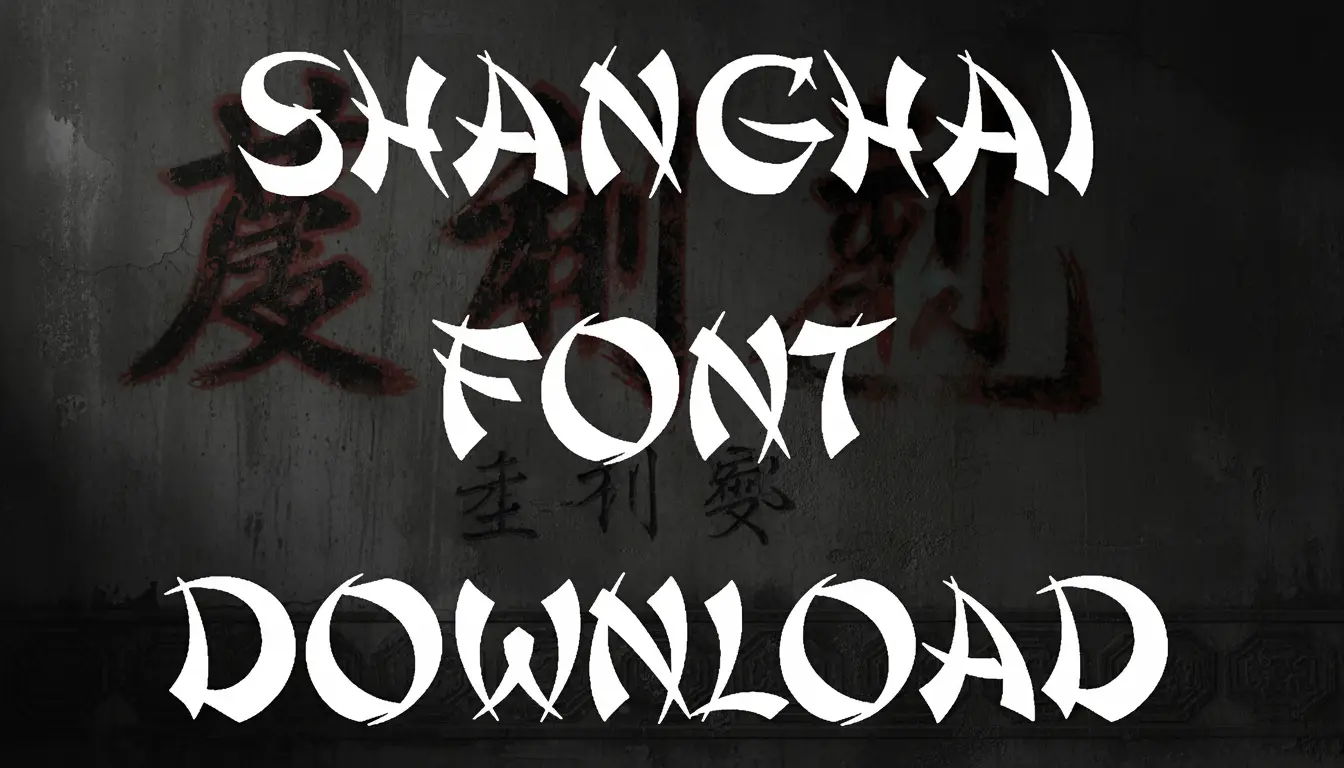
Shanghai highly stylized display typefaces that graphic designers use in modern layout design.
Shanghai
Shanghai is a Chinese and Japanese-style font (1995).